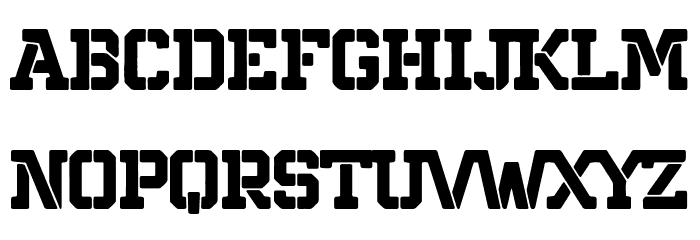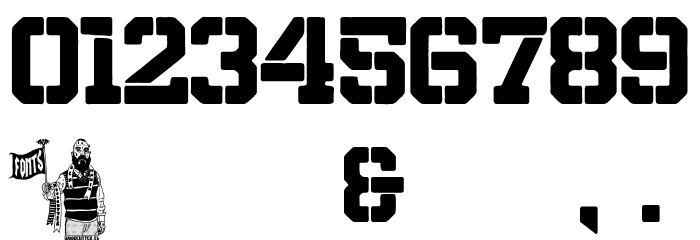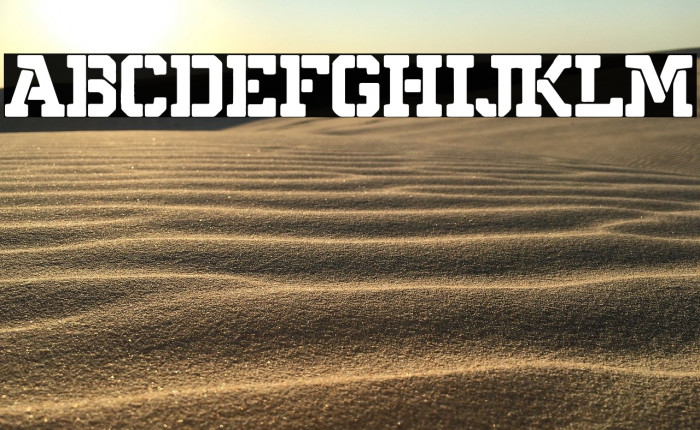
northern army Font
This font exhibits a bold, stencil-like design with strong geometric shapes and a robust presence. The characters are crafted with a military-inspired aesthetic, featuring solid, blocky forms and cut-out sections that mimic the look of stenciled lettering. The uppercase letters are uniform in height, maintaining a consistent and powerful appearance. The numerals and special characters follow the same design principles, ensuring a cohesive look across all glyphs. This font is ideal for projects that require a strong, authoritative visual impact, such as military-themed designs, posters, or branding that seeks to convey strength and reliability.
A bold, stencil-style font with a military-inspired design.
- Font: northern army
- Proposed Projects: Ideal for military-themed designs, posters, branding, and signage requiring a strong, authoritative look.